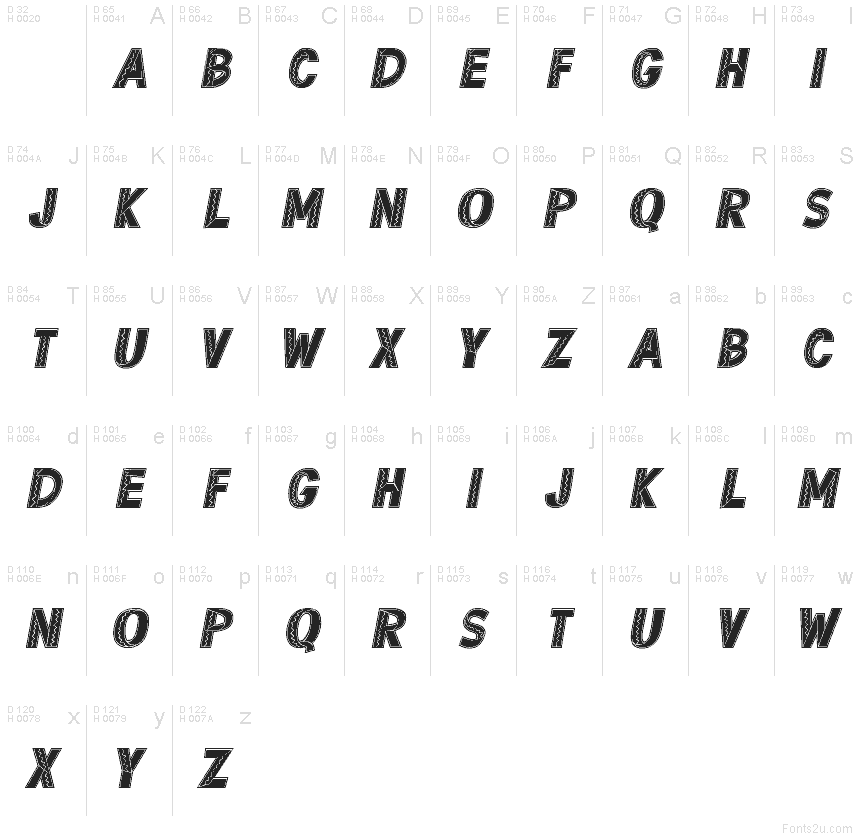
Illegal Drugs Italic
Illegal Drugs Italic font by Vladimir Nikolic is a free decorative display typeface from the Illegal Drugs family. Its slanted stance and carved, zig-zag striping create a gritty, high-voltage texture—like ink scratched through metal. The letters feel fast and pressurized, with chunky strokes and a slick, stamped finish that pops the moment you scale it up.
Using Illegal Drugs Italic, headlines snap with attitude on gig posters, festival branding, streetwear logos, gaming titles, zines, and nightlife flyers. The bold rhythm and built‑in texture do the heavy lifting, so keep copy short and big. Pair with a clean, neutral sans for body text, and tighten tracking slightly to amplify the punch of this free font.